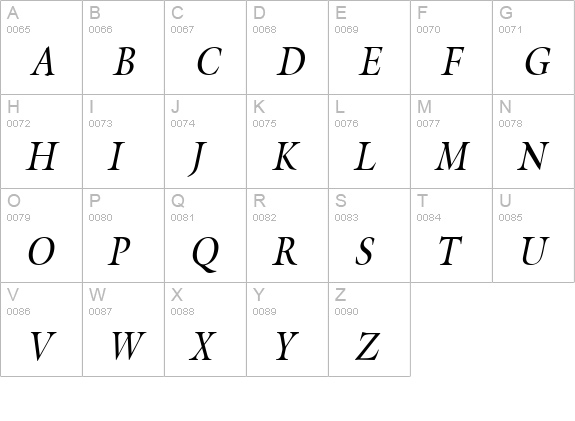
Galant Condensed Italic is a distinctive, condensed-width, italic variant in the Galant typeface family \xE2\x80\x94 well suited to design and typography projects.
Galant Condensed Italic is a visually striking and elegant font that exudes a sense of sophistication and modernity. With its sleek and streamlined design, this font is perfect for adding a touch of class to any project. The italicized style of Galant Condensed Italic adds a dynamic and energetic feel to the text, making it stand out on any page. Its slanted strokes create a graceful flow, creating a sense of movement and emphasis. Whether it is used for headings, subheadings, or body text, this font is sure to make a lasting impression. One of the most appealing aspects of Galant Condensed Italic is that it is freely available to download at FontsMarket.com. This means that anyone can access and use this stunning font without any restrictions or limitations. Whether you are a professional designer, a student working on a project, or someone simply looking to enhance their personal documents, Galant Condensed Italic is a valuable resource that brings beauty and elegance to your work. The versatility of Galant Condensed Italic is another highlight. It is suitable for a wide range of purposes, from website design and branding to advertising materials and print media. Its clean and legible characters make it easy to read, even at smaller sizes, ensuring that your message is communicated effectively. The attention to detail in the design of Galant Condensed Italic is evident in every letterform. The subtle curves and precise angles create a harmonious balance, resulting in a visually pleasing and professional-looking font. The spacing between characters is carefully crafted, ensuring optimal readability and aesthetic appeal. Whether you are looking to add a touch of elegance to a wedding invitation, create a stylish logo for your business, or simply make your personal documents more visually appealing, Galant Condensed Italic is the perfect font choice. Its striking design, combined with its freely available nature at FontsMarket.com, makes it an invaluable asset for any creative project.